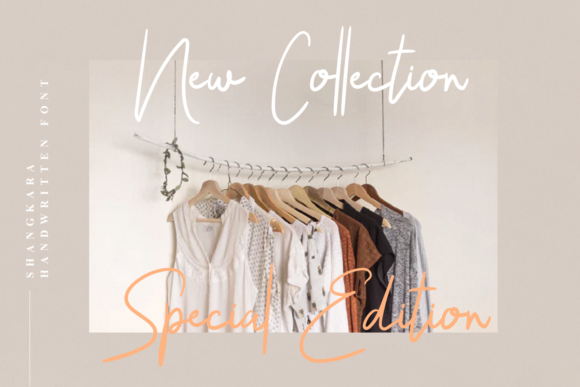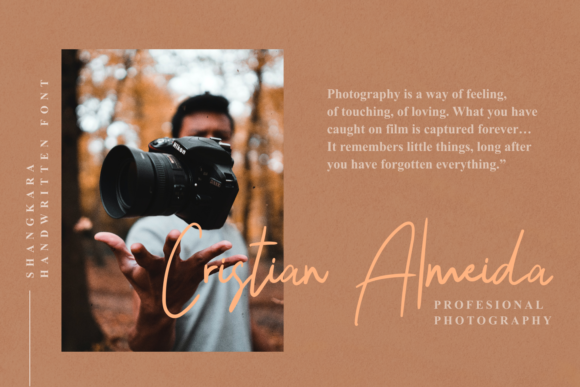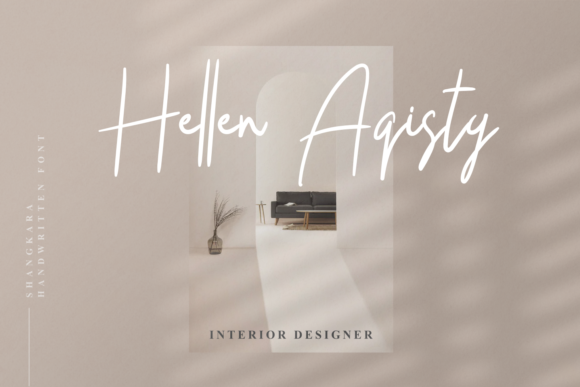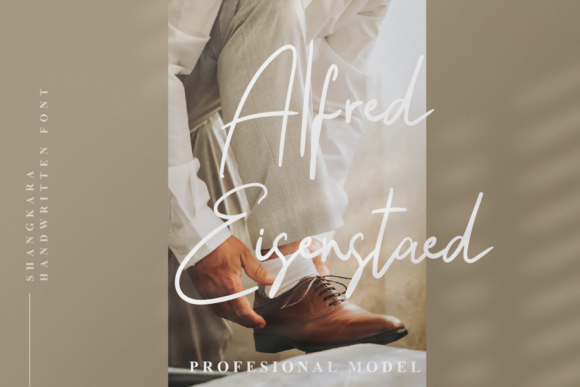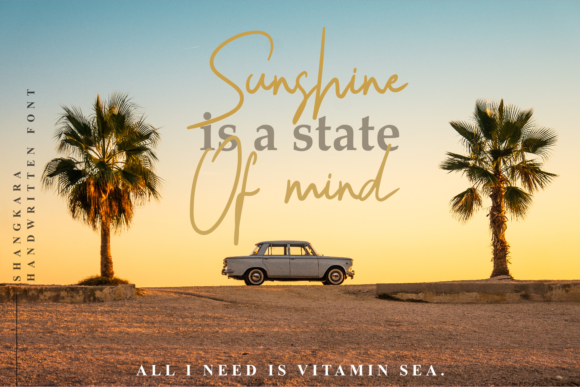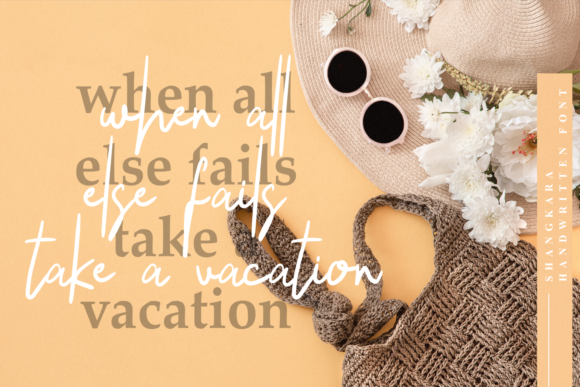
Introduction to Shungkara Font
As designers, we’ve all been there – stuck in a creative rut, searching for that perfect font to elevate our project. It’s the moment when you stumble upon a hidden gem, and everything falls into place. For me, that moment came when I discovered the Shungkara Font – a stunning script font that adds a touch of elegance to any design.
Whether you’re working on a wedding invitation, a thank you card, or a logo, Shungkara Font is the perfect design resource to give your project that handwritten touch. With its high-quality design and transparent background, it’s a valuable asset for any creative project. And the best part? It’s available for free download, making it an accessible resource for designers of all levels.
As a designer, you know how crucial it is to have a reliable and versatile font at your disposal. Shungkara Font fits the bill, offering a unique and sophisticated look that’s sure to impress. In this article, we’ll delve into the world of Shungkara Font and explore its many uses and benefits.
Key Features of Shungkara Font
- High-quality, unique design resource for creative projects, available for free download.
- Includes a comprehensive character set, covering a wide range of languages and special characters.
- Designed to be highly scalable, with excellent readability at resolutions up to 300 DPI.
- Perfect for use in logos, branding, typography, and other design projects where a unique and elegant font is required.
Honest Review: Shungkara Font
As a designer, I’m always on the lookout for high-quality design resources that can elevate my creative projects. The Shungkara Font is one such resource that I recently had the opportunity to review.
- ✨ Elegant and sophisticated design aesthetic that’s perfect for luxury branding and high-end designs.
- ✨ Highly customizable with a wide range of font weights and styles to choose from.
- ✨ Includes a transparent background option, making it easy to overlay on images or other design elements.
- ⚠️ Limited language support, which may be a concern for designers working on multilingual projects.
- ⚠️ Not as versatile as some other fonts, which may limit its use in certain design scenarios.
Overall, I’m impressed with the Shungkara Font and would recommend it to designers looking for a high-quality, elegant font for their creative projects.
Using Shungkara Font in Creative Projects
Shungkara Font is a versatile font suitable for various creative projects, including logos, brochures, and infographics. You can use it in popular design software like Canva, Adobe Photoshop/Illustrator, or PowerPoint/Word.
Tips for Getting the Most Out of Shungkara Font
To get the most out of Shungkara Font, use it with a transparent background to create a clean and modern design. Experiment with different font sizes and colors to add visual interest to your project.
The Shungkara Font is ideal for various design projects, including logos, business cards, and marketing materials. Its high-quality design and transparent background make it a great choice for creative projects requiring a clean and modern look.
Alternatives to Shungkara Font
Great Vibes Font is a high-quality, elegant script font ideal for creative projects that require a touch of sophistication. It features a transparent background, making it perfect for use on various design elements. Great Vibes Font is a great alternative to Shungkara Font when you need a more refined and classic look.
Compared to Shungkara Font, Great Vibes Font has a more polished and luxurious feel, making it suitable for high-end design projects.
Pacifico Font is a beautiful, cursive script font that’s perfect for design projects that require a sense of elegance and sophistication. It features a transparent background and is available for free download, making it a great design resource for designers on a budget. Pacifico Font is a great alternative to Shungkara Font when you need a more laid-back and beachy vibe.